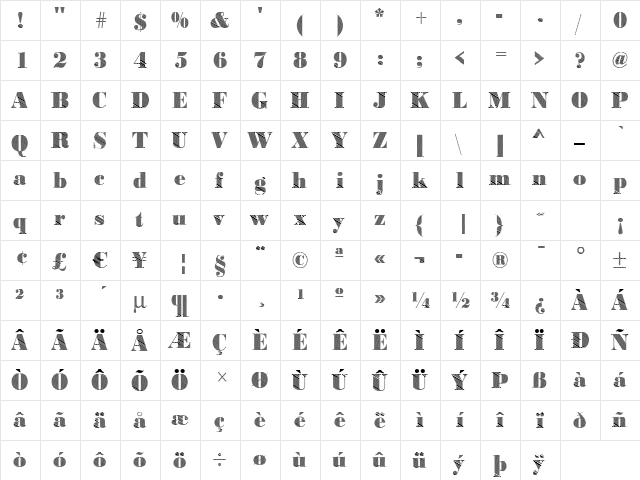
BodoniFalling2 Regular
Design Context for BodoniFalling2 Typeface
BodoniFalling2 takes a measured approach to typography — its balanced proportions and neutral character make it a reliable workhorse for both digital and print work.